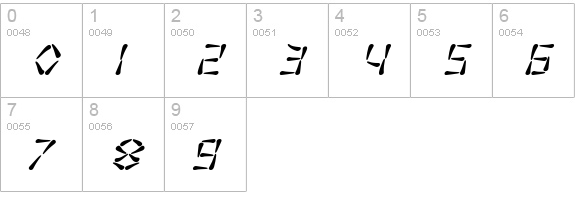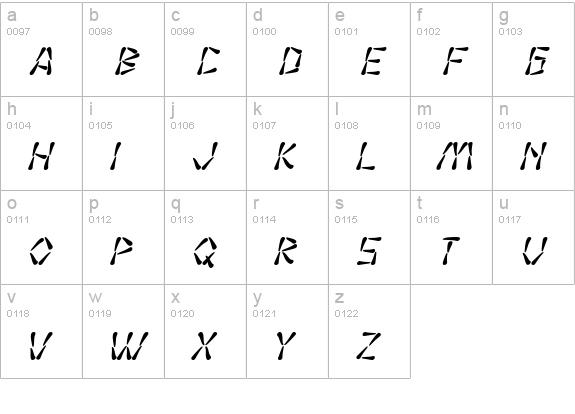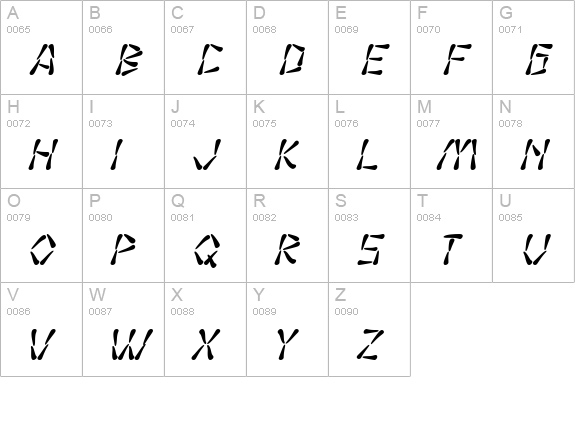
SF Wasabi Italic Font Details
SF Wasabi Italic is a distinctive, italic variant in the SF typeface family \xE2\x80\x94 well suited to design and typography projects.
SF Wasabi Italic is a stunning and dynamic font that exudes modernity and sophistication. With its sleek and bold letterforms, this font is perfect for any design project that requires a touch of edginess and flair. The unique italic style of SF Wasabi adds a sense of movement and energy to your typography, making it an excellent choice for headlines, logos, and branding materials. Its sharp angles and precise curves create a visual impact that is both eye-catching and memorable. One of the best things about SF Wasabi Italic is that it is completely free to use. This means that you can elevate your designs without having to worry about any additional costs. Whether you're a professional graphic designer or a hobbyist, this font will serve as a valuable addition to your font library. To access SF Wasabi Italic, simply head over to FontsMarket.com, where it is freely available for download. FontsMarket.com offers an extensive collection of premium fonts that can be accessed at no cost, making it a go-to source for designers seeking high-quality resources without breaking the bank. Embrace the bold and contemporary style of SF Wasabi Italic and elevate your designs to new heights. Download this font today and unleash your creativity with the freedom it provides.